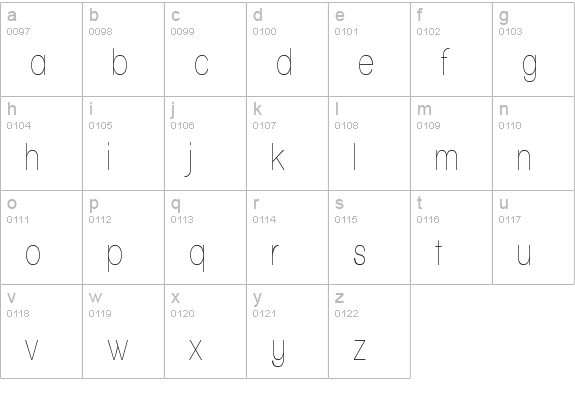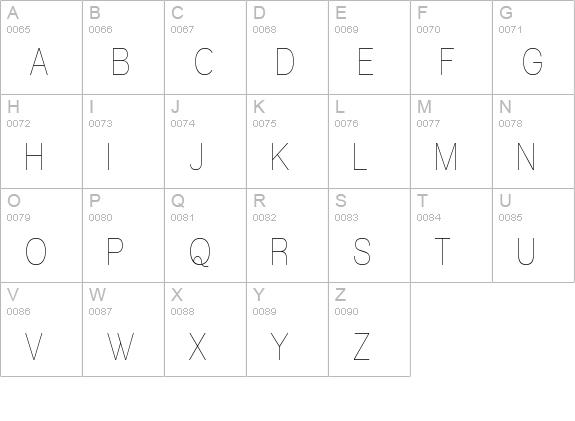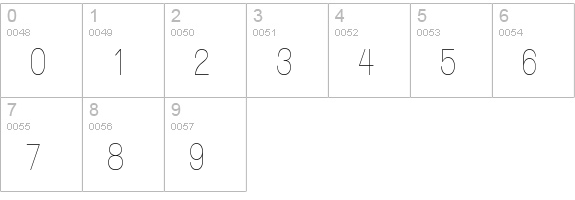
Walkway Condensed is a distinctive, condensed-width variant in the Walkway typeface family \xE2\x80\x94 well suited to design and typography projects.
Walkway Condensed is a modern and sleek font that effortlessly combines elegance with a touch of sophistication. Its condensed design makes it perfect for headlines, titles, and any other text that needs to make a bold statement. With its clean and sharp lines, Walkway Condensed exudes a sense of professionalism and versatility, making it suitable for a wide range of design projects. This font is not only visually appealing but also incredibly practical. Its condensed nature allows for maximum readability, even when used in smaller sizes or tight spaces. Whether you are designing a magazine layout, creating eye-catching signage, or crafting a striking logo, Walkway Condensed will always deliver exceptional results. One of the best features of Walkway Condensed is that it is available for free download at FontsMarket.com. This means that you can enjoy the benefits of this stunning font without having to spend a dime. With just a few clicks, you can have this font at your fingertips, ready to enhance your designs and make them stand out from the crowd. So why wait? Experience the power and versatility of Walkway Condensed by downloading it for free at FontsMarket.com today. Let this font be the secret weapon in your design arsenal, helping you create breathtaking typography that captivates and inspires.